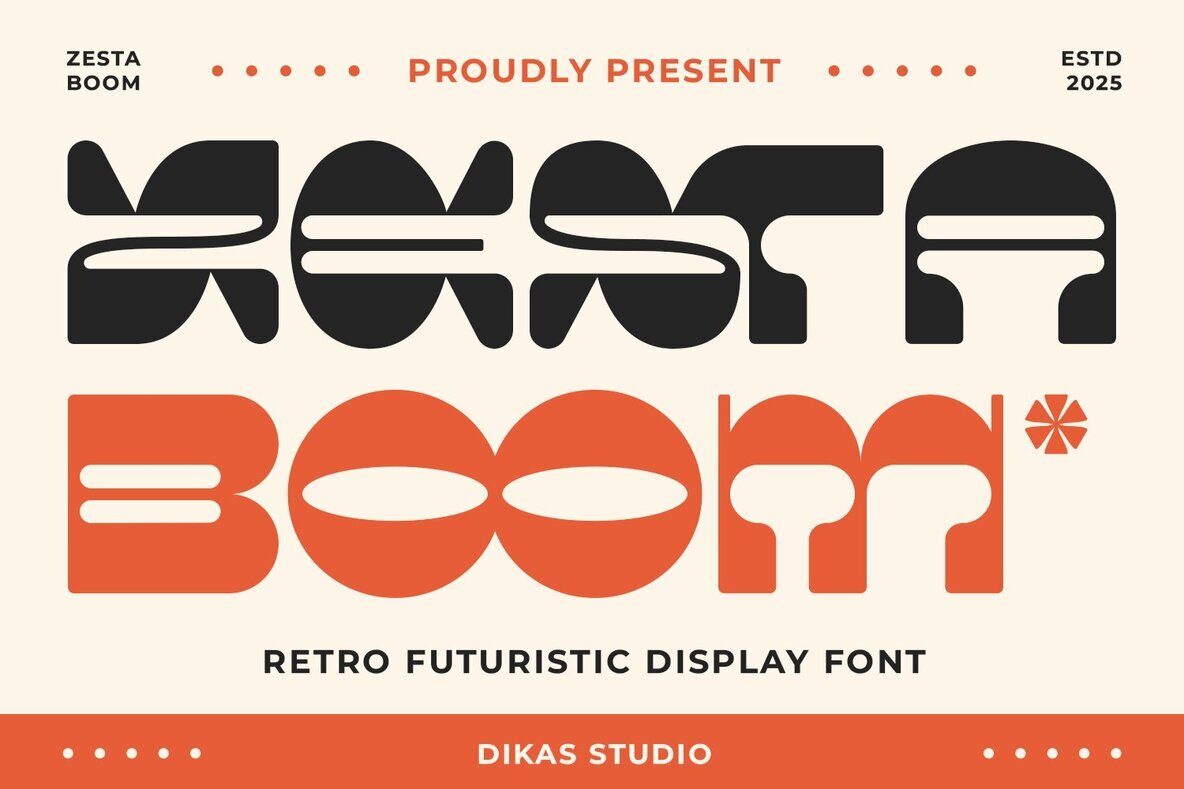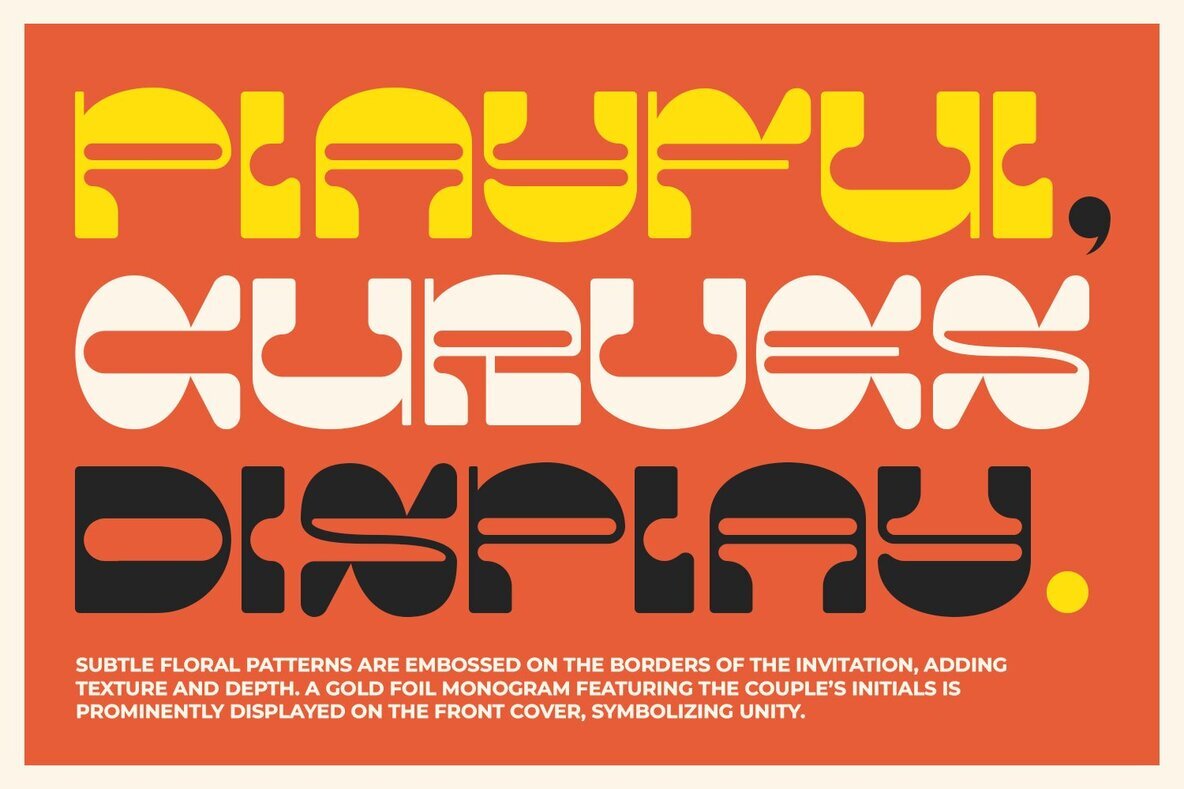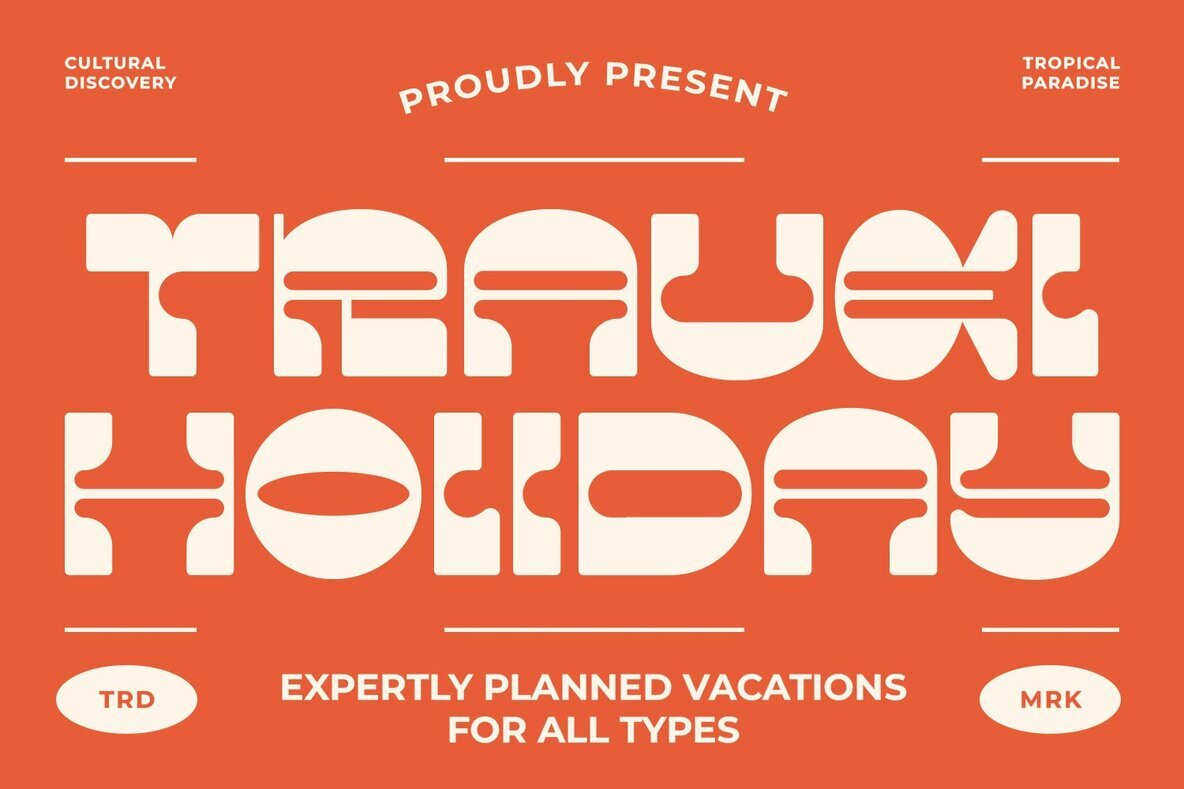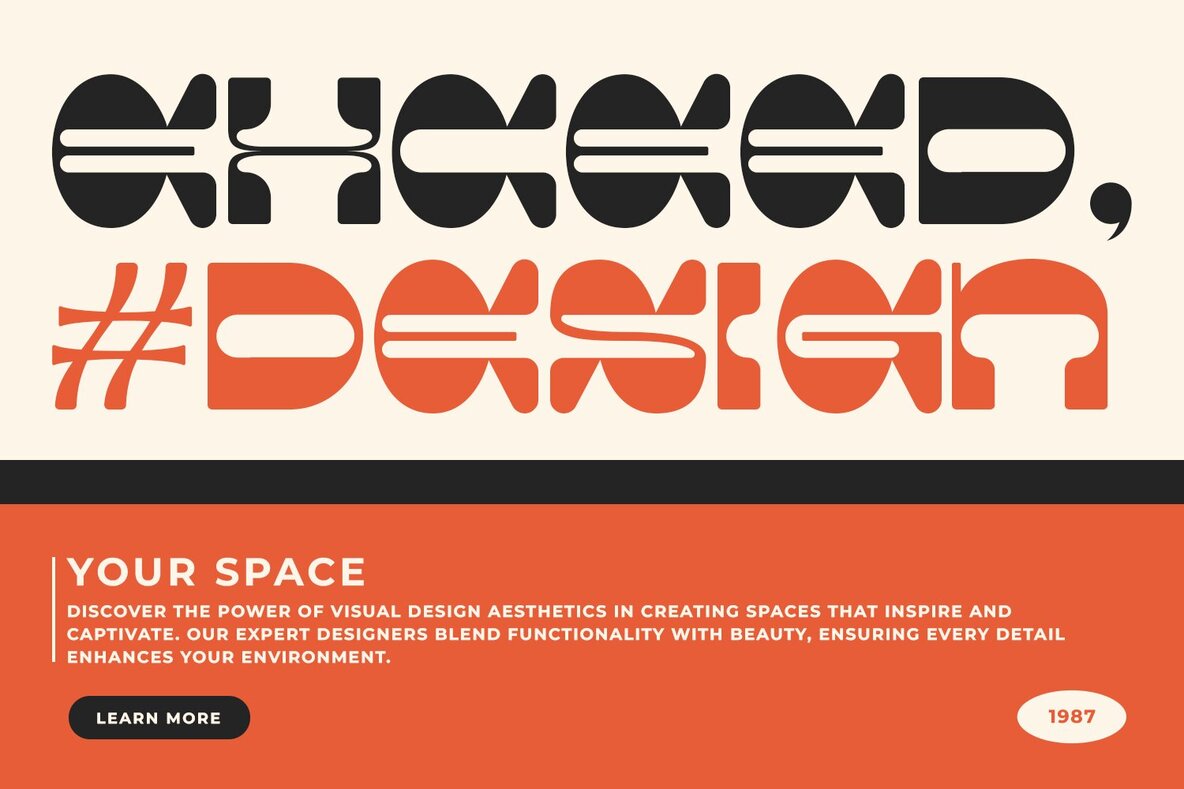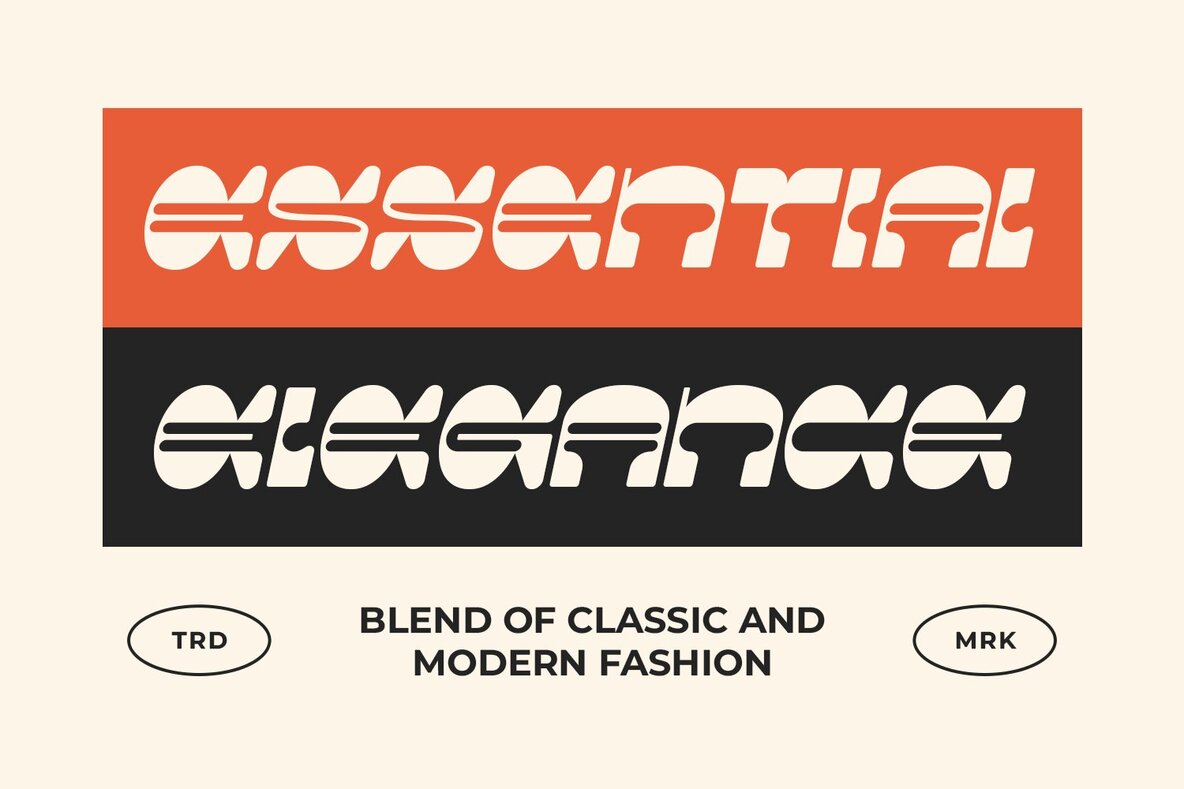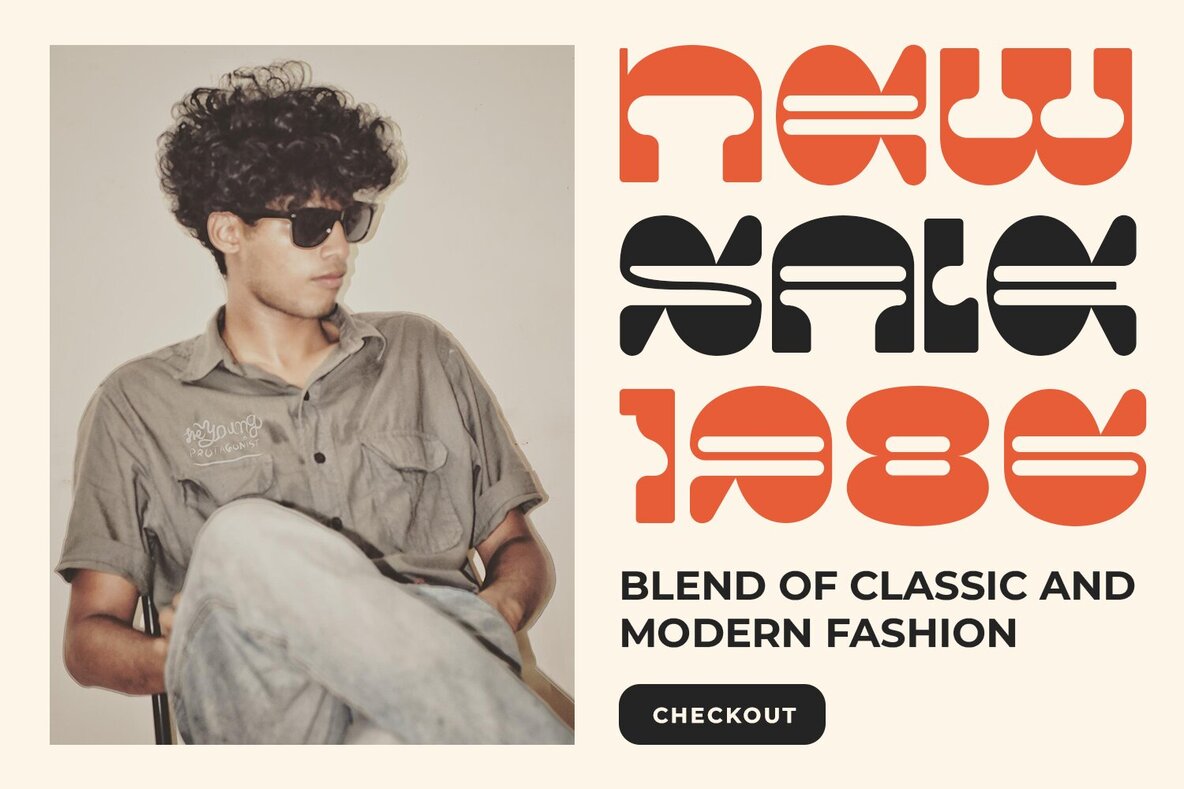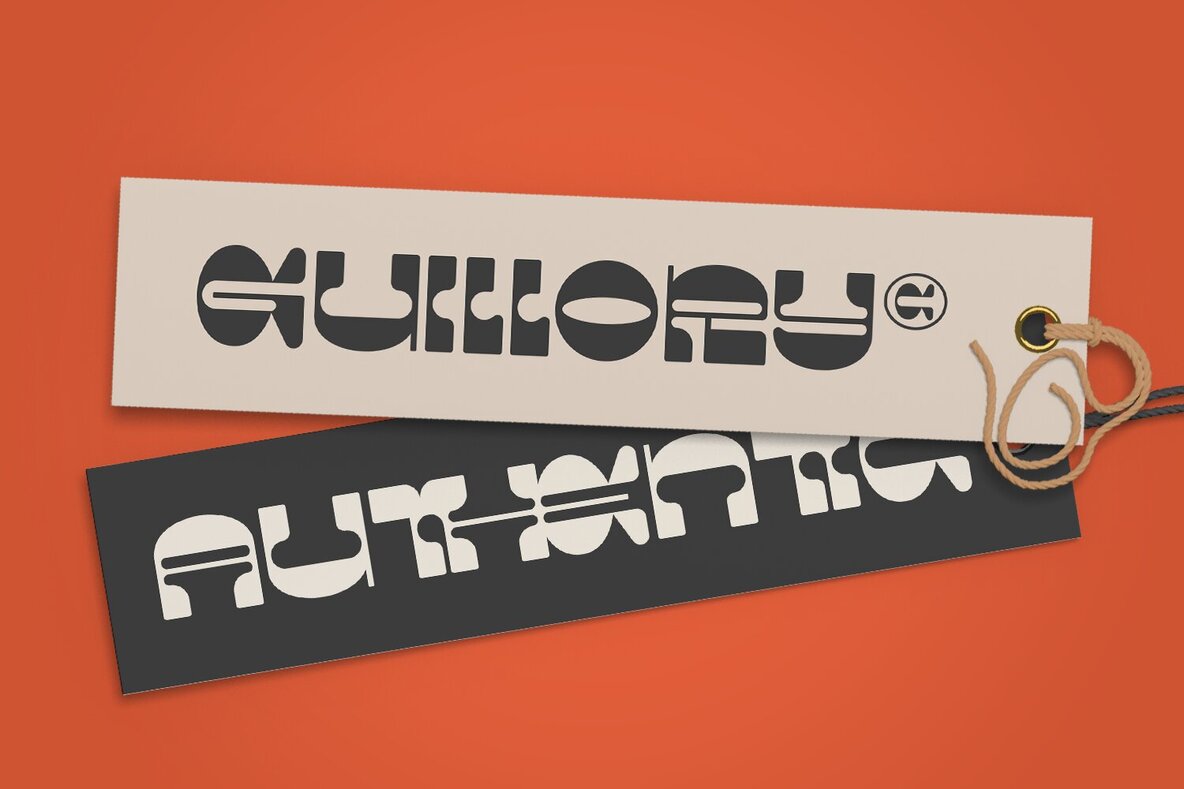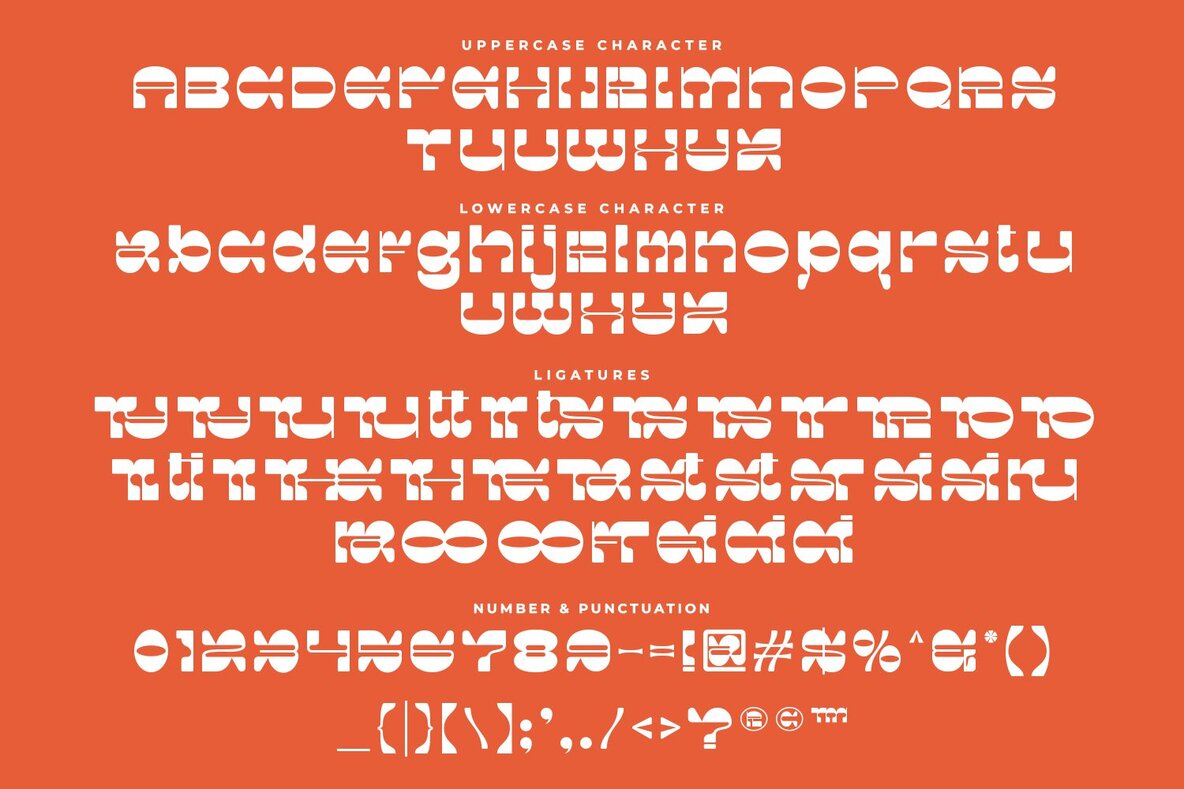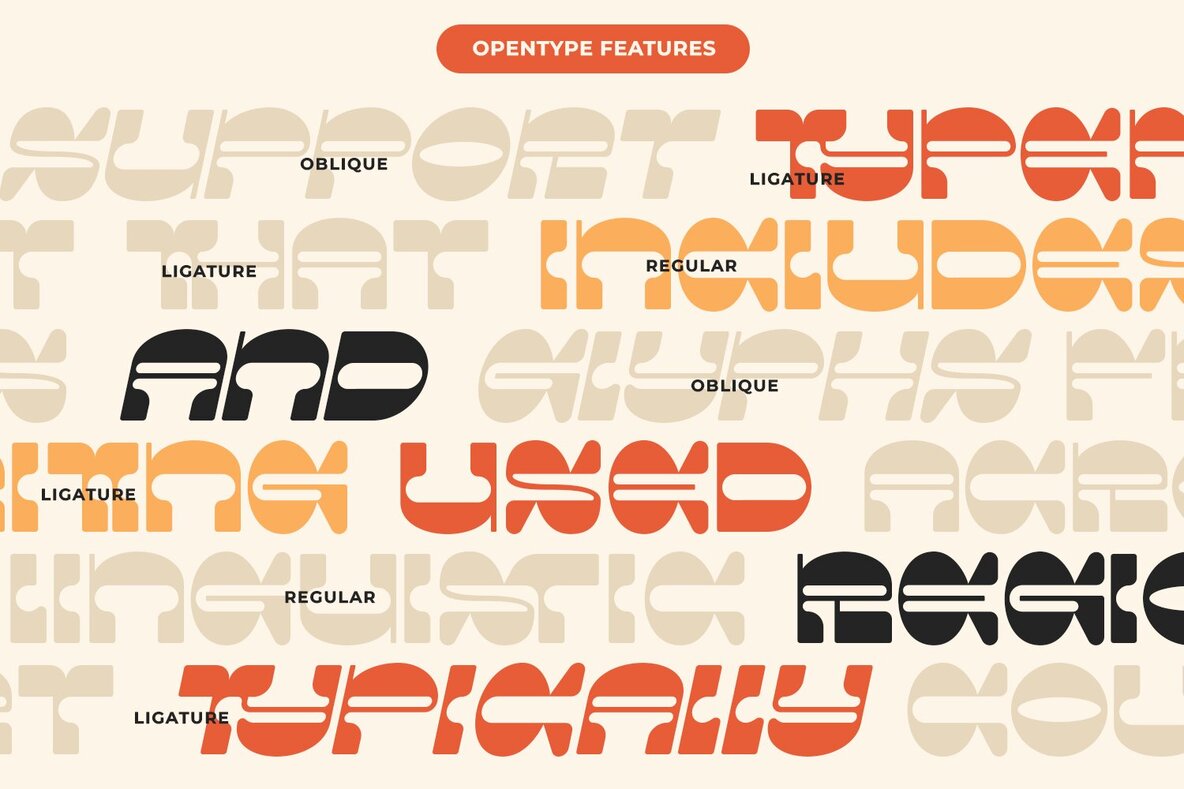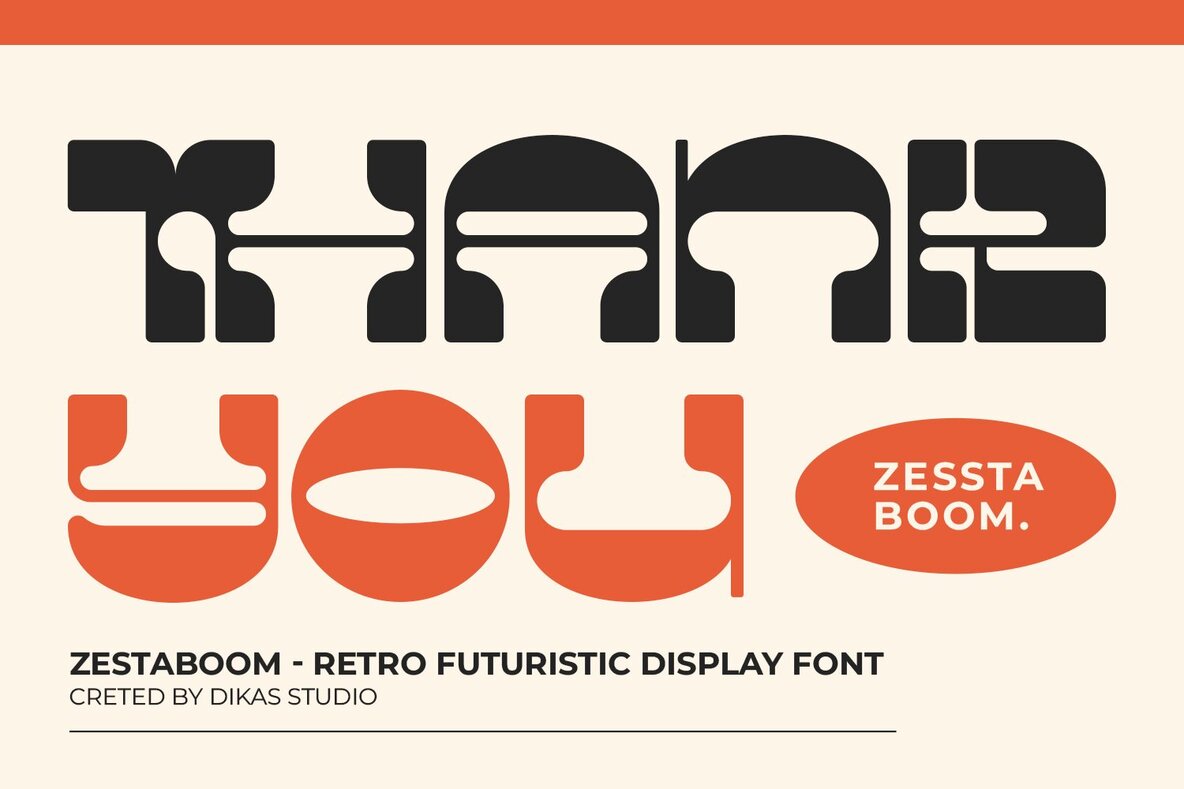
Zestaboom Font
Zestaboom Regular
Zestaboom Oblique
Zestaboom captures the dynamic essence of 70s design with its distinct reverse contrast style. This font features bold, vibrant elements, perfect for those who seek to infuse their projects with a touch of vintage charm. Its whimsical shapes make it ideal for a variety of applications, including posters, logos, album covers, and packaging.Zestaboom: A Bold Retro Font with Unique Flair